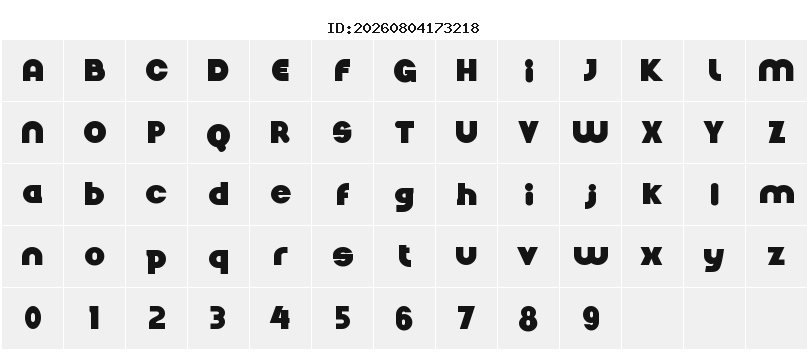
• Font Name: Nickel Bumpy
• Full Font Name: Nickel Bumpy
• Designer: Galdino Otten
About Nickel Bumpy.ttf
Nickel Bumpy.ttf is a modern, elegant sans-serif font designed for ultimate readability and visual harmony. Perfect for branding, headlines, web design, and print materials.